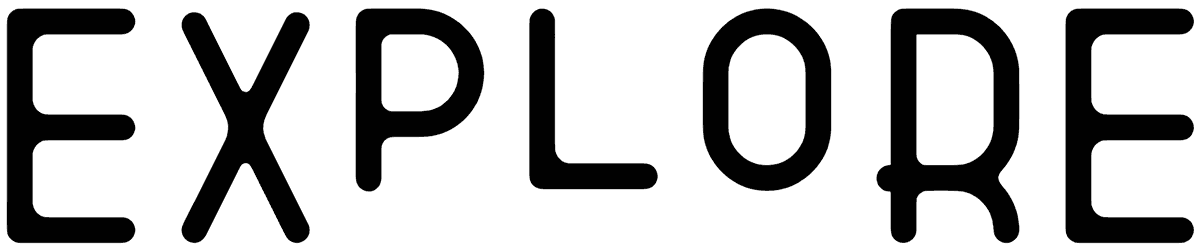
Explore Font
When you look at the Explore font, the extensions in some letters with curving lines grab your attention at first glance. While staring, this small caps font boosts your imagination and takes you to a fantastic world.
Although the Explore font does not support numbers, it might be an excellent choice for a title on a website since it invites the viewer to explore your content. The size, curves, and extensions of letters are designed smartly to entertain your audience.